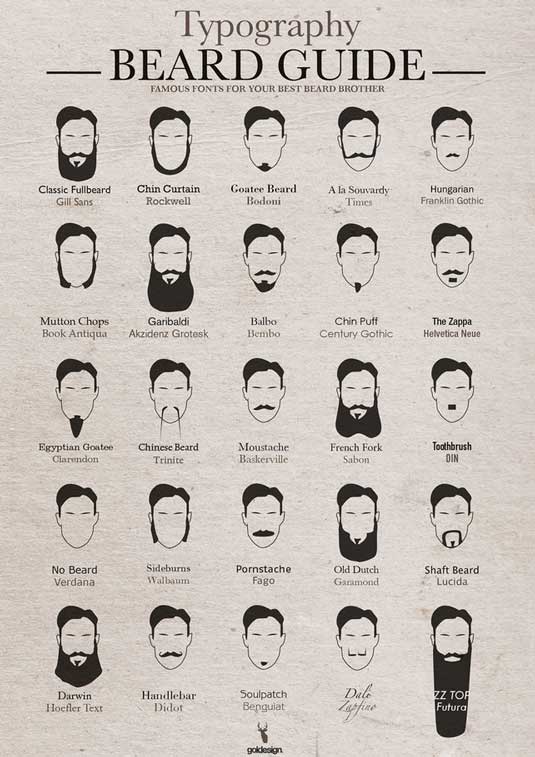
What font is your beard?
Franklin Gothic, Gill Sans, Helvetica Neue and more get reimagined as styles of facial fuzz, in Christian Goldemann's brilliant Typography Beard Guide.
If you've ever wondered what kind of font your facial hair is (and we're sure that you have) this cool new infographic, which matches beard illustrations with their typeface equivalents, will answer all your questions.
Developed by artist Christian Goldemann, the humorous infographic details 25 popular facial hair styles, assigned with a font based on their characteristics. It's easy to see the inspiration behind some of the designs, the most obvious being the Baskerville font used for the moustache sported by Sherlock Holmes' sidekick John Watson. Although we're not sure about how or why Goldemann paired up certain others, like ZZ Top and Futura, for example.
That aside, it's a brilliant, unique and playful concept. And who knows, if you're in want of a new look or struggling to decide what next to do with your facial fur this could well be an invaluable new resource!